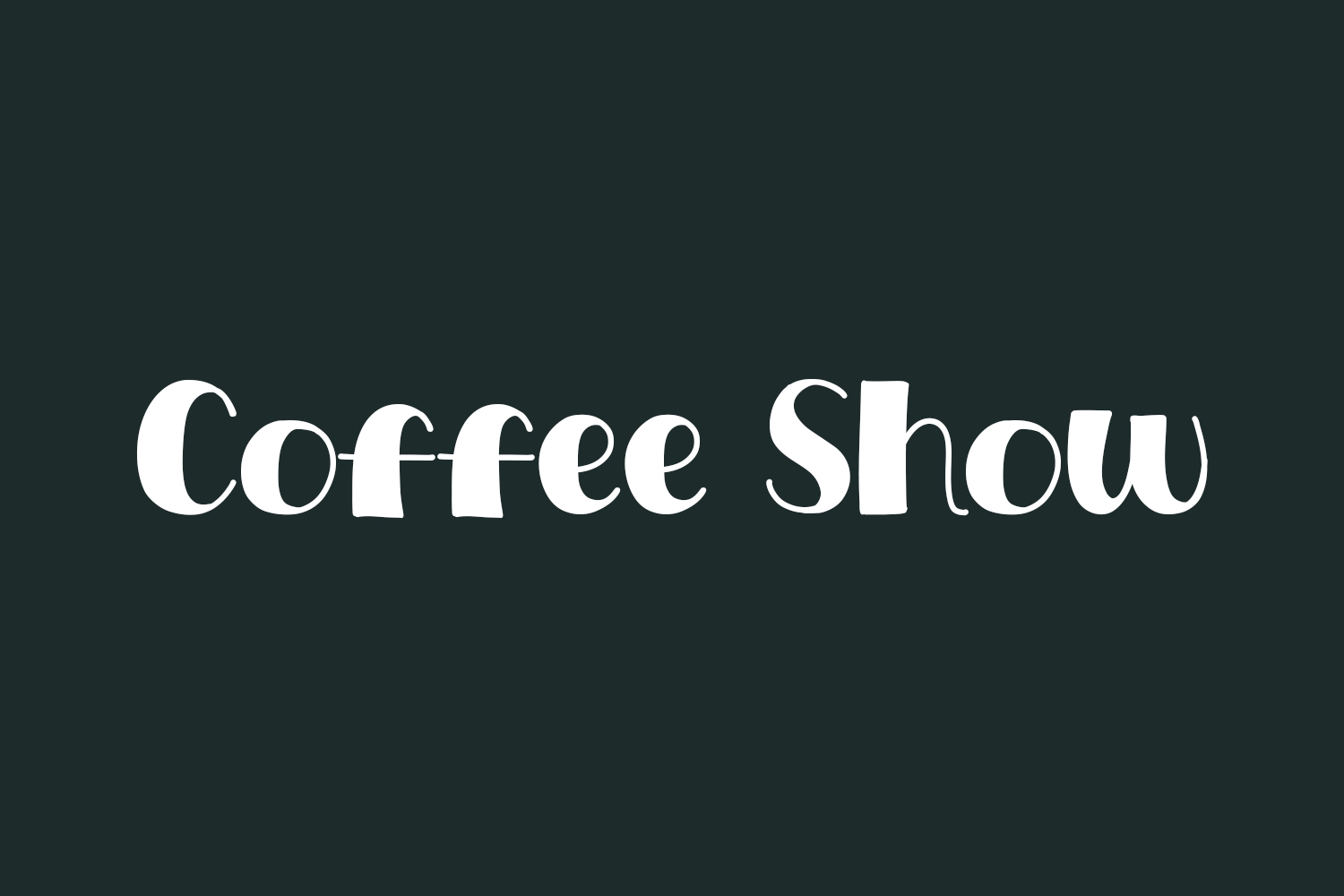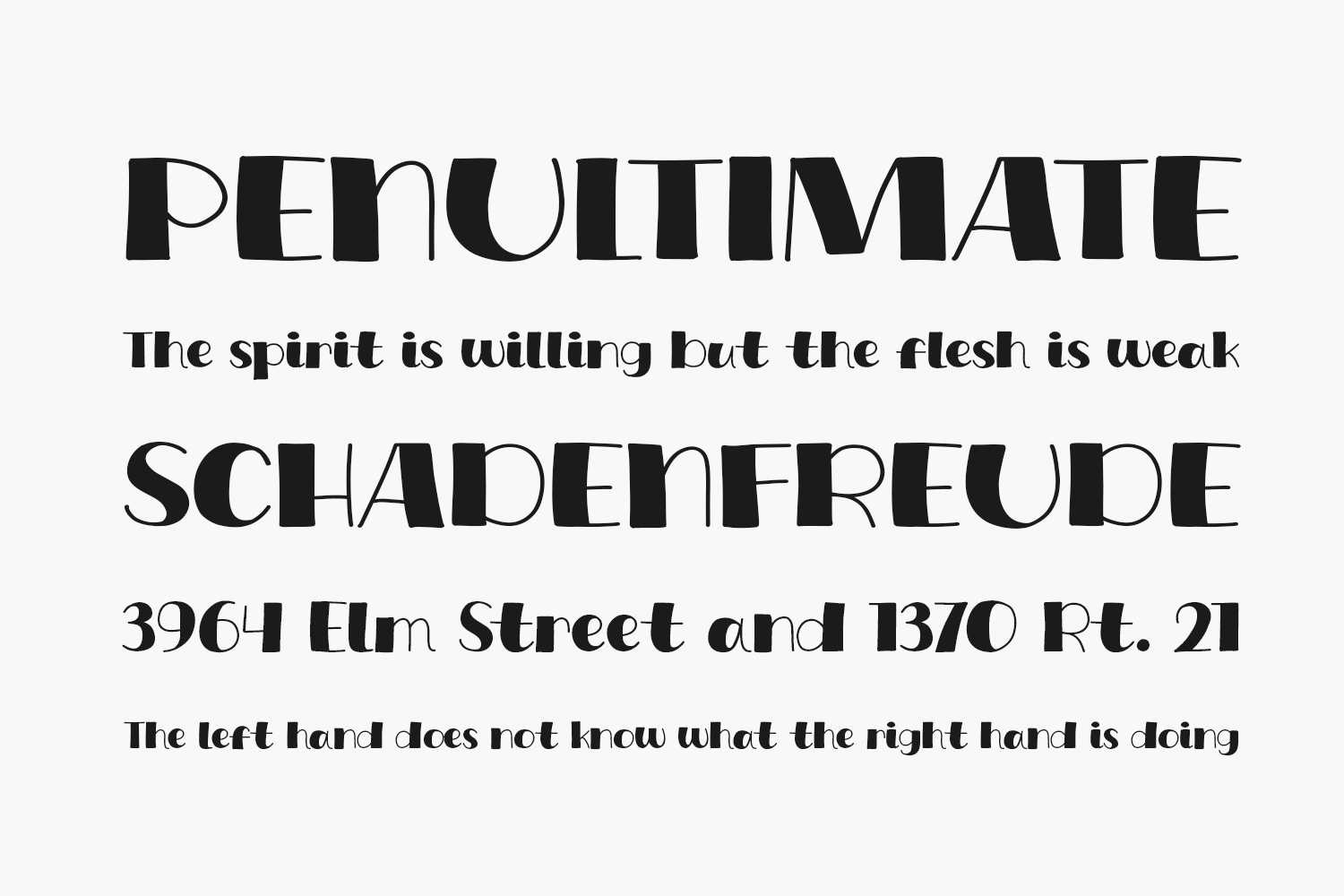
Introducing Coffee Show Free Font, a contemporary and elegant display font ideal for posters, logos, magazines, book covers, banners, and beyond! Elevate your designs with this exceptional font. Its versatility seamlessly adapts to a wide range of projects, so incorporate it into your creative ideas and witness the remarkable difference it makes in making them truly stand out. Coffee Show Free Font is free for personal use only. Please purchase the full version for commercial use.